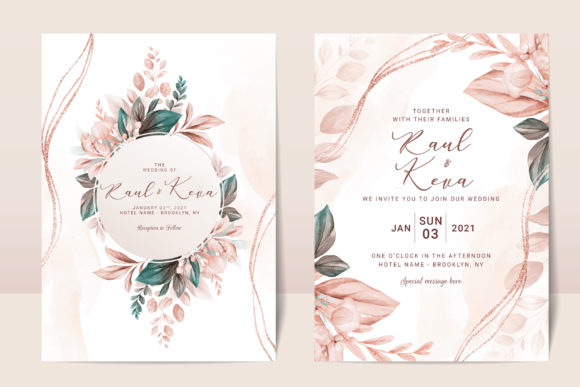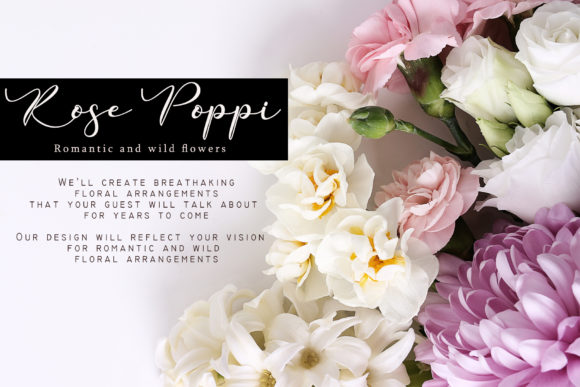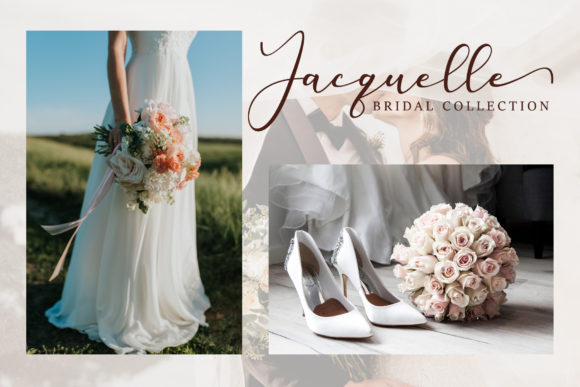
Introduction to Ruth Daisi Font
As a designer, there’s nothing quite like the thrill of staring at a blank canvas, waiting for inspiration to strike. For me, that moment often comes when I’m searching for the perfect font to bring my creative project to life. And that’s exactly what happened when I stumbled upon the enchanting Ruth Daisi Font. Its delicate and elegant handwritten style immediately caught my eye, and I knew I had to learn more.
Ruth Daisi Font is more than just a pretty face – it’s a high-quality design resource that’s sure to elevate any project. With its well-rounded letters and versatile style, this font is perfect for designers looking to add a touch of sophistication and whimsy to their work. And the best part? It’s available for free download, making it an accessible and valuable addition to any design toolkit.
Key Features of Ruth Daisi Font
- High-quality design resource suitable for creative projects
- Designed with a unique, elegant aesthetic, perfect for branding and typography projects
Honest Review: Ruth Daisi Font
The Ruth Daisi Font is a beautiful addition to any design resource collection. I’ve had the pleasure of working with it on a few creative projects, and I must say, it’s a high quality asset.
- What works well: The Ruth Daisi Font has a unique, hand-drawn feel that adds a touch of personality to any design. Its versatility makes it suitable for a wide range of creative projects, from branding to editorial work.
- What works well: The font’s transparent background is a huge plus, allowing for seamless integration with other design elements.
- ⚠️ Limited character set: The Ruth Daisi Font has a limited character set, which may not be ideal for projects that require a wide range of characters.
- ⚠️ Not suitable for large-scale projects: While the font is beautiful, it may not be the best choice for large-scale projects that require a lot of text.
Overall, I’m impressed with the Ruth Daisi Font. It’s a great free download for designers looking to add some unique flair to their creative projects. Just be aware of its limitations and use it accordingly.
The Ruth Daisi Font is ideal for various creative projects, including logos, brochures, and social media graphics. Its transparent background makes it easy to use in combination with other design elements.